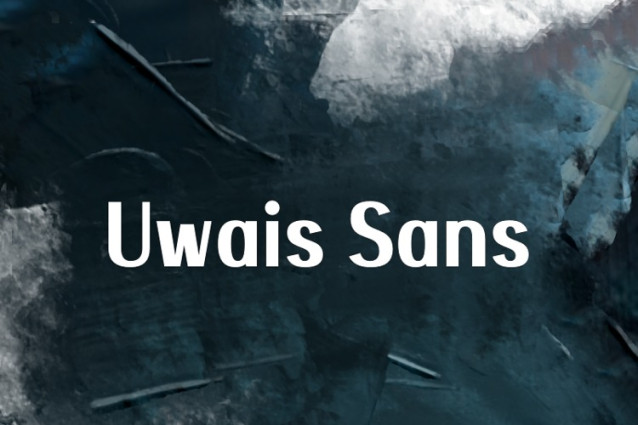
Uwais Font
Uwais Font a bold statement with our latest sans-serif font. With its clean lines and modern appeal, this font is sure to turn heads and leave a lasting impression. Perfect for headlines, logos, and any design that demands attention. It is both functional and stylish, making it a versatile choice for a wide range of design projects.